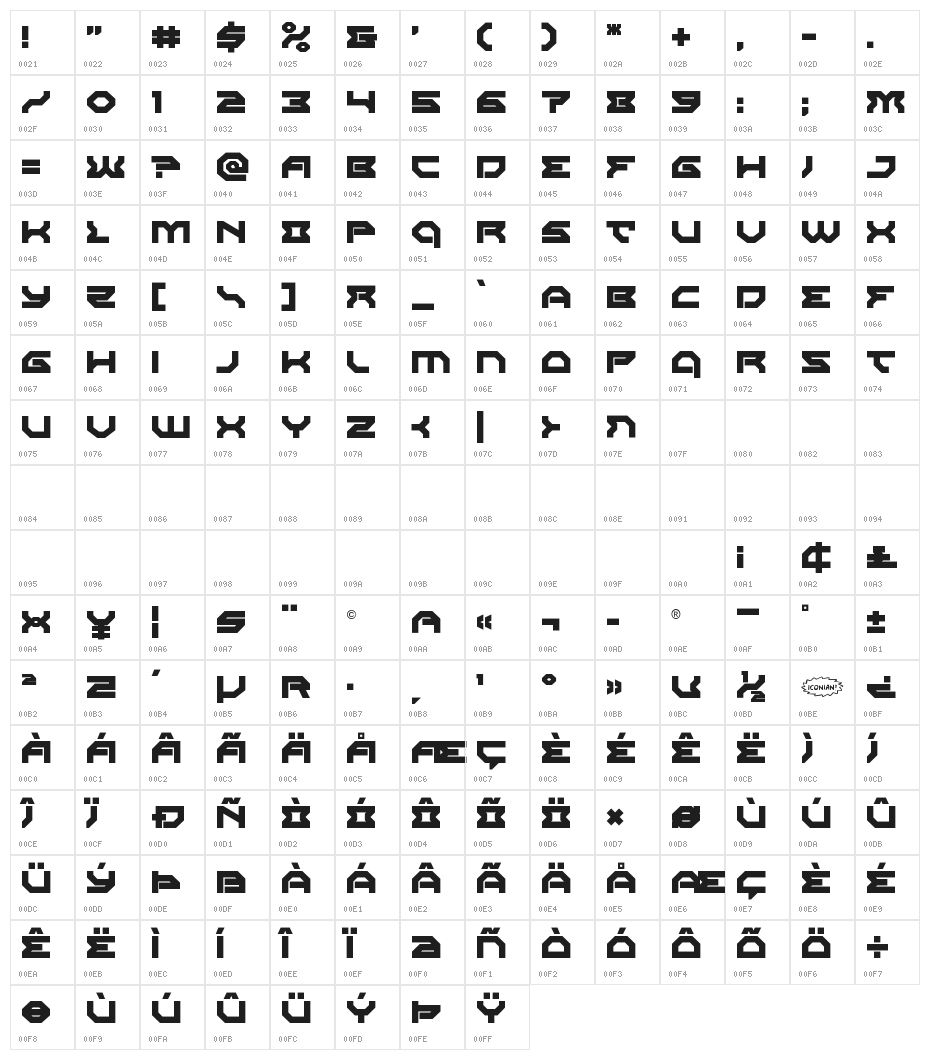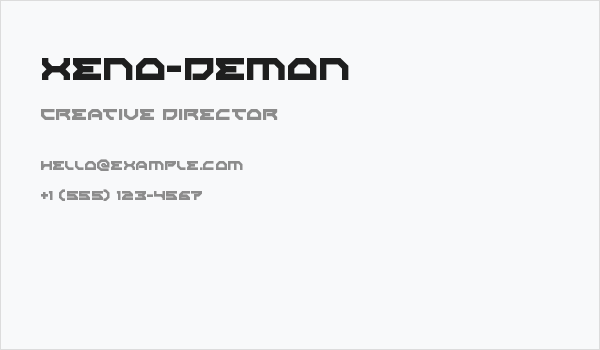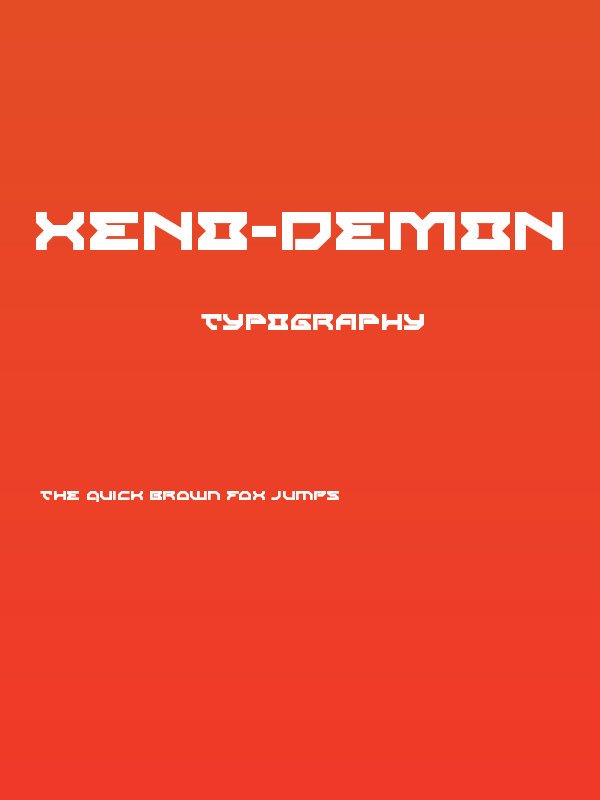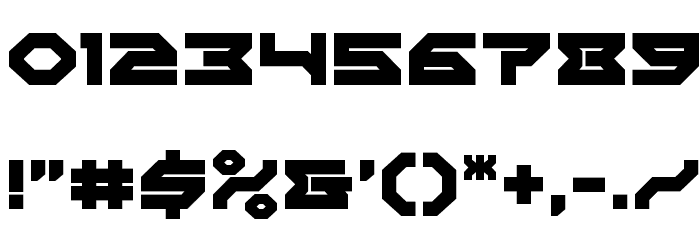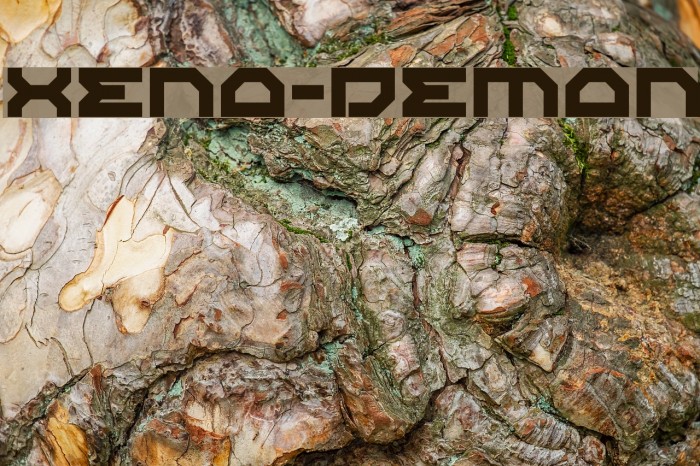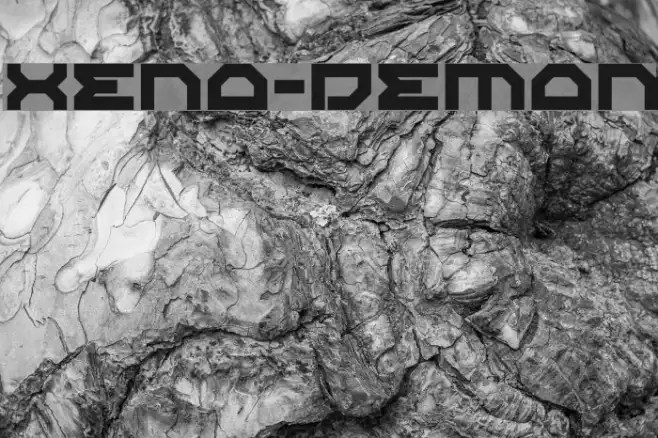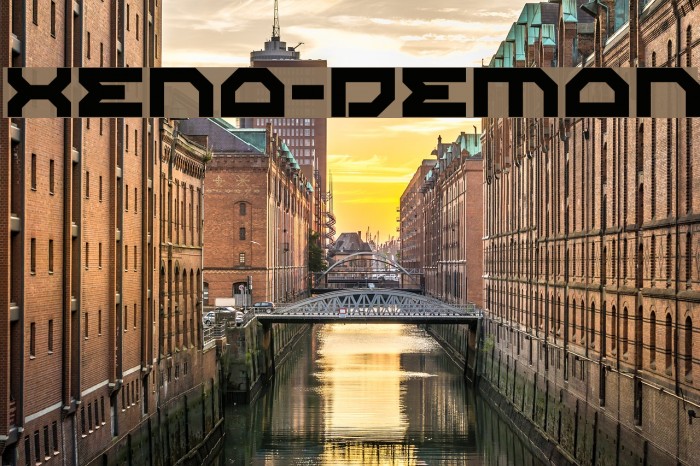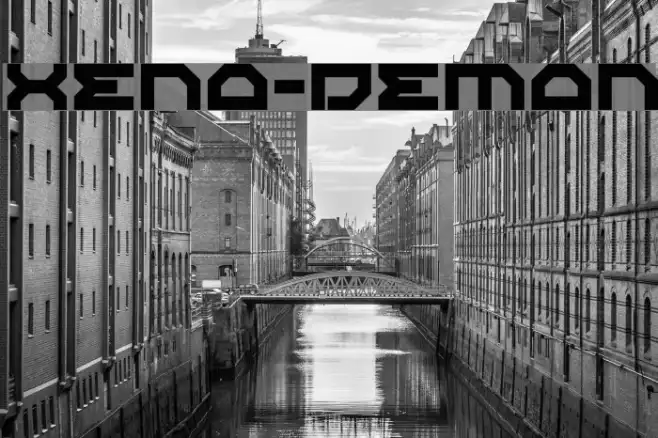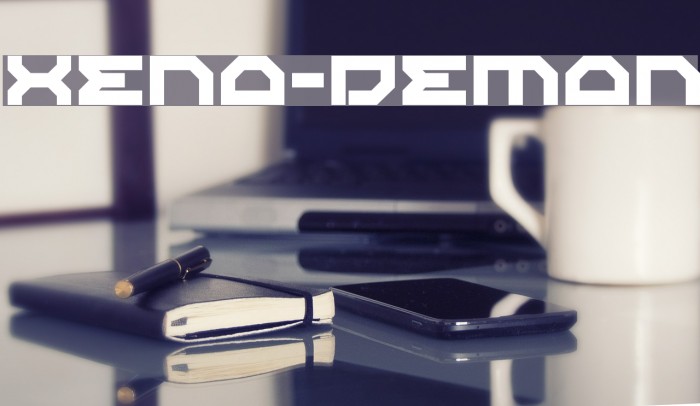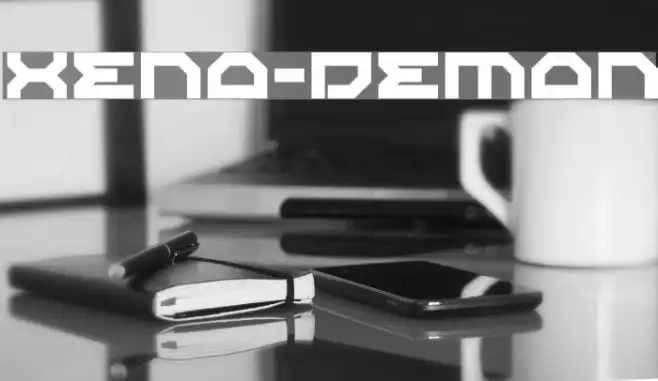
Xeno-Demon Font
Xeno-Demon Description
This font features a bold, futuristic design with angular and geometric shapes. The characters have a distinct, edgy appearance, characterized by sharp angles and a blocky structure. The uppercase and lowercase letters maintain a consistent style, with a uniform height and width that gives the font a cohesive look. The numbers and special characters follow the same design principles, ensuring a harmonious overall appearance. This font's unique style makes it stand out, offering a modern and tech-inspired aesthetic that is both eye-catching and memorable.
| Proposed Projects | Ideal for sci-fi themed projects, video game titles, tech company logos, and futuristic posters. |